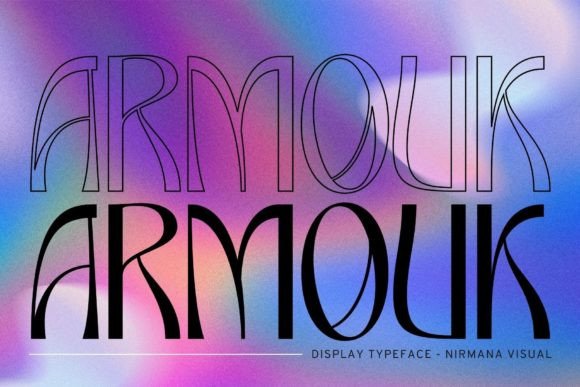
The Designer’s Delight: Exploring the Armouk Font
I still remember the frustration of working on a logo design project, only to hit a roadblock when searching for the perfect font. My client wanted something modern, yet elegant; something that would make their brand stand out. After hours of scouring through font libraries, I stumbled upon Armouk, and it was love at first sight! ✨ In this article, I’ll share my experience with this beautiful font, its features, and how to make the most of it in your designs.
An Honest Review of Armouk
What I Love About Armouk
- ✨ Beautiful typographic harmony: Armouk offers a stunning balance of curves and lines, making it perfect for a variety of design projects.
- ✅ Versatility: From logos and branding to social media posts and advertisements, Armouk adapts seamlessly to different contexts.
- 💡 Contemporary feel: This font is perfect for designers looking for a modern, fresh look that will make their designs pop.
While Armouk is an excellent font, there are a few things to keep in mind: 🤔
- ⚠️ Limited use in body text: Due to its display nature, Armouk might not be the best choice for lengthy paragraphs.
- ⚠️ Some characters may require manual kerning: While Armouk is generally well-spaced, some character combinations might require manual adjustment for optimal results.
The Story Behind Armouk
Armouk was designed with the goal of creating a modern, yet elegant font that would meet the needs of designers. Inspired by the beauty of traditional typography, the designer aimed to craft a font that would be both versatile and visually stunning. 💻
| Font Name | Armouk Font |
| Author | Sigit Dwipa |
Q: What type of projects is Armouk best suited for?
A: Armouk is perfect for logos, branding, social media posts, advertisements, product designs, and any project that requires a modern, elegant look.
Q: Is Armouk a script font?
A: No, Armouk is a display font with a sans-serif design. While it has elegant lines, it’s not a script font.